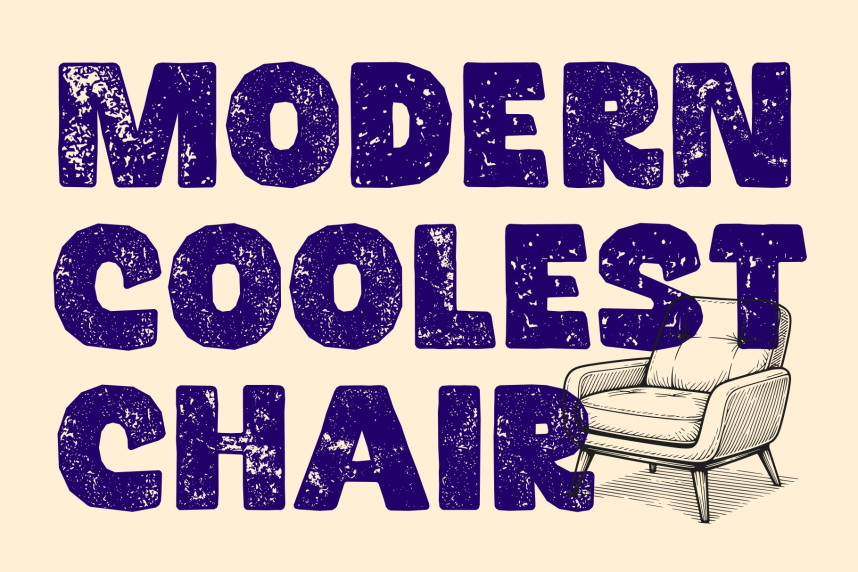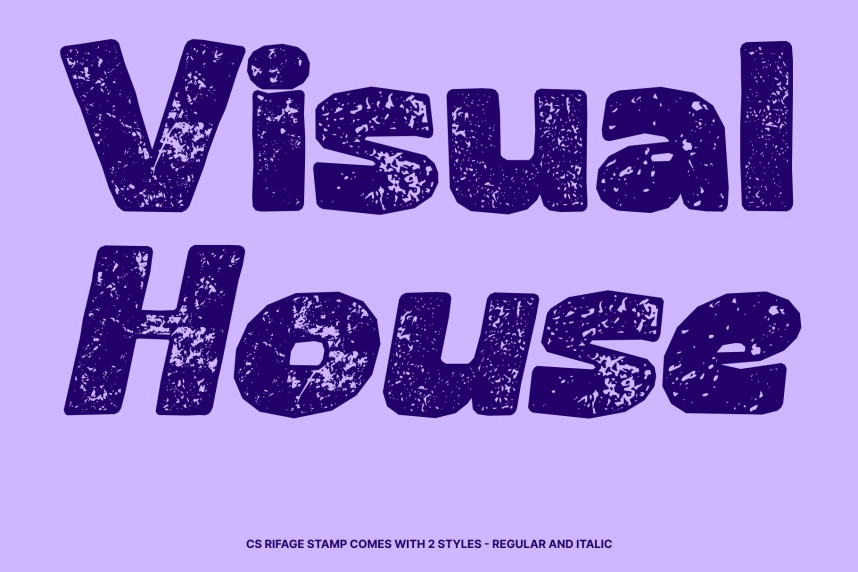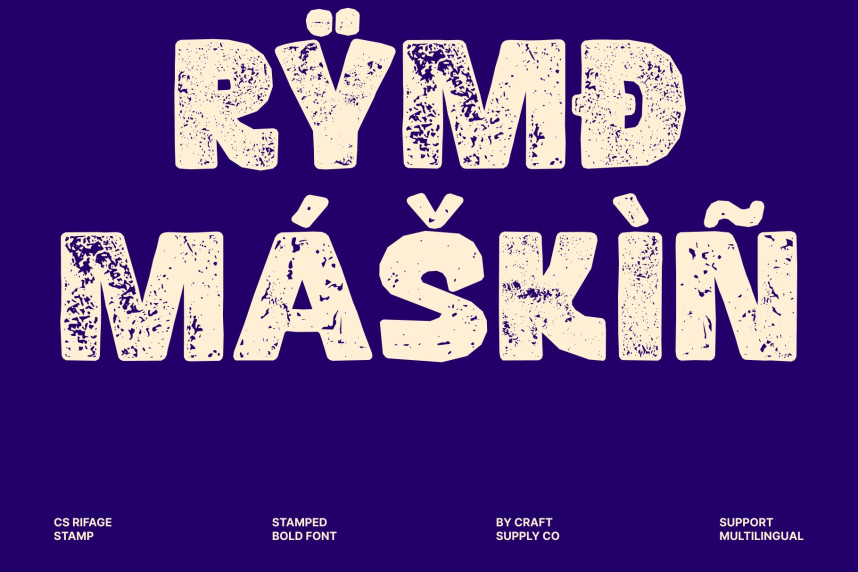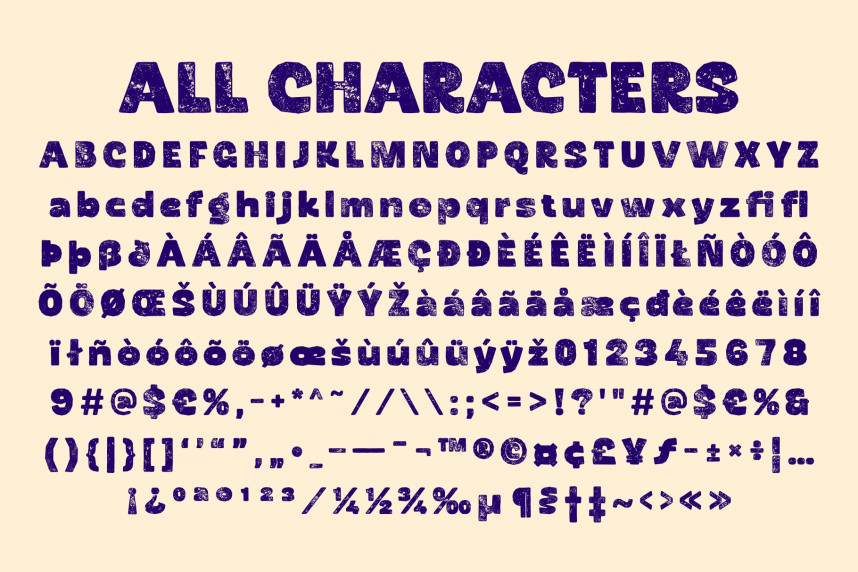
CS Rifage Stamp Font
CS Rifage Stamp Font – Bold Sans Serif Font: Where Funky Boldness Meets Vintage Stamp Texture
Thick Letterforms with Funky Personality
This is a bold sans serif font that commands attention through its striking thick strokes and distinctive funky character. Its confident letterforms create a lively and energetic visual presence, blending modern boldness with playful expression. Designed for maximum impact, it delivers typography that is eye-catching, memorable, and full of creative personality.